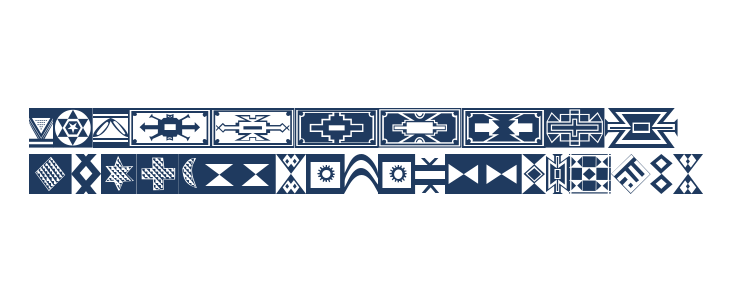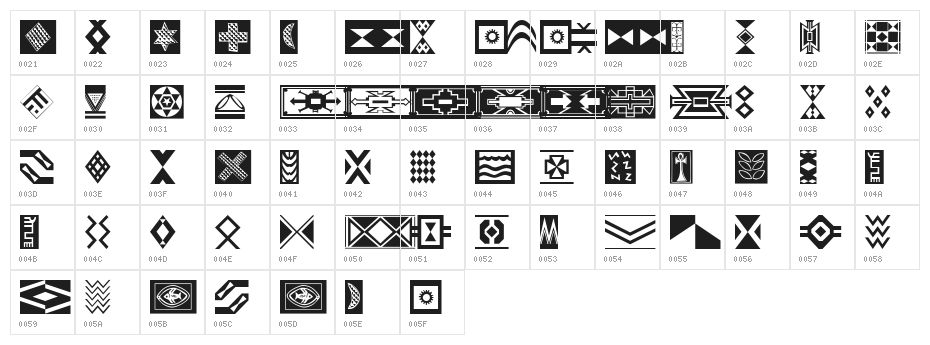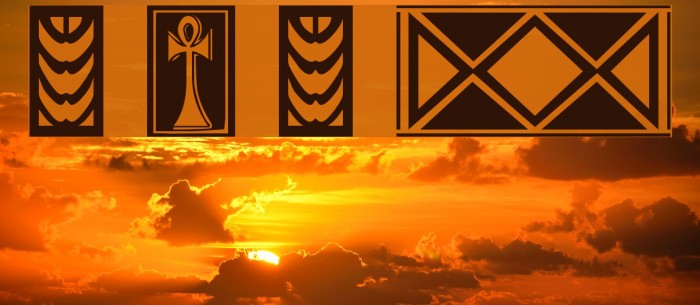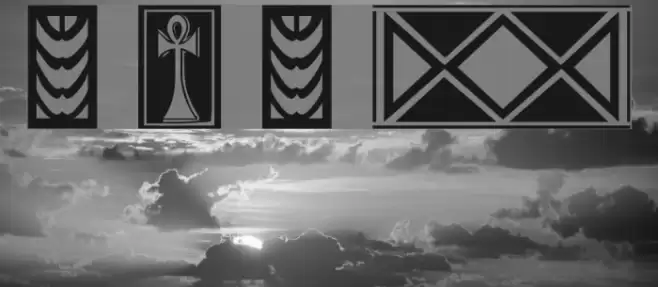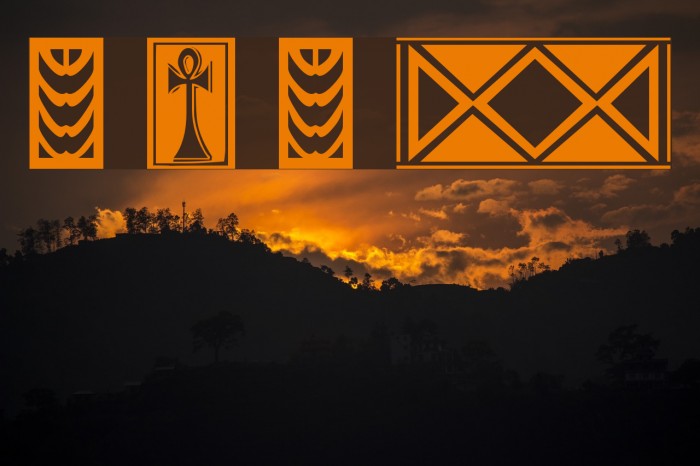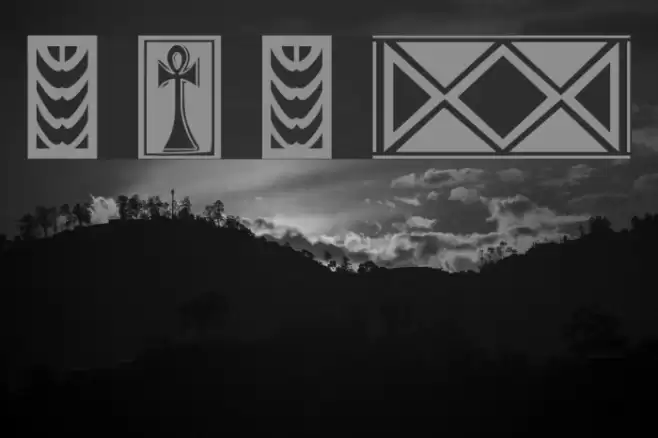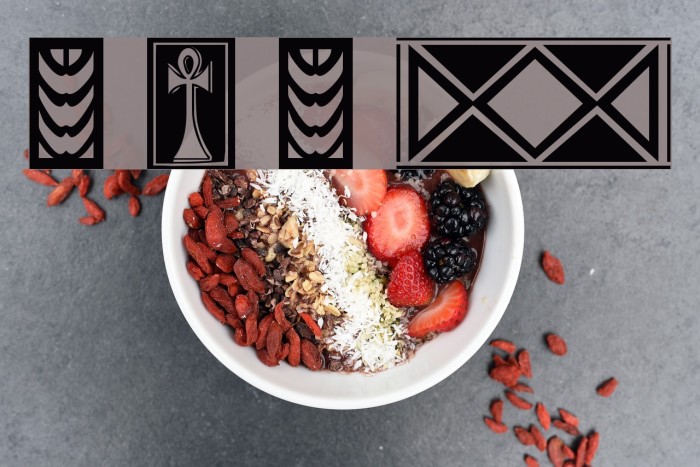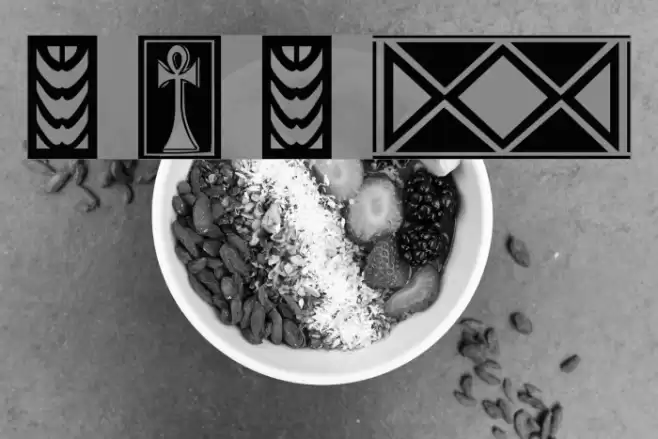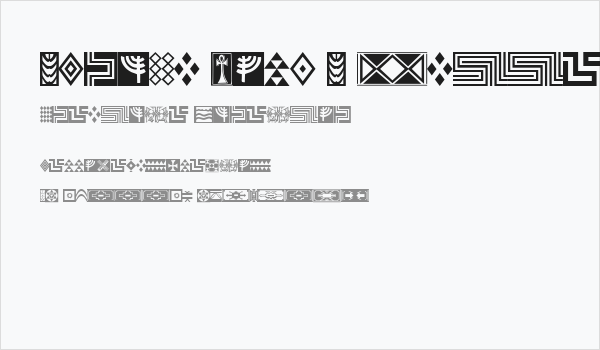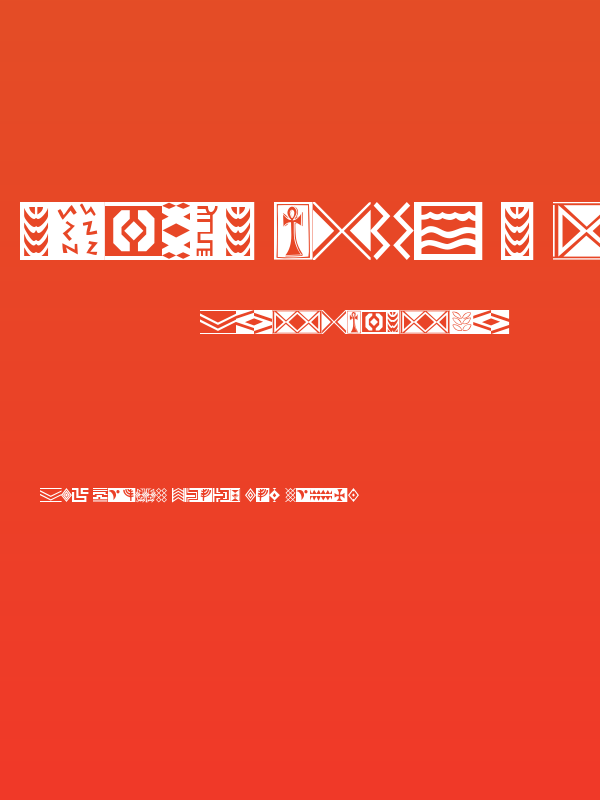
Afrika Gold A Patterns Font
Afrika Gold A Patterns Description
A collection of bold, geometric, and highly decorative glyphs inspired by African patterns and motifs. The designs are intricate, with strong contrasts and a variety of shapes including diamonds, zigzags, triangles, and stylized symbols. Each character is unique and ornamental, making the set visually striking and culturally evocative.
| Overall Style | Decorative, Ethnic, Geometric |
| Use Case | Borders, Logos, Posters, Decorative elements |
| Proposed Projects | Ethnic-themed branding, textile design, packaging, posters, cultural event materials, decorative borders. |